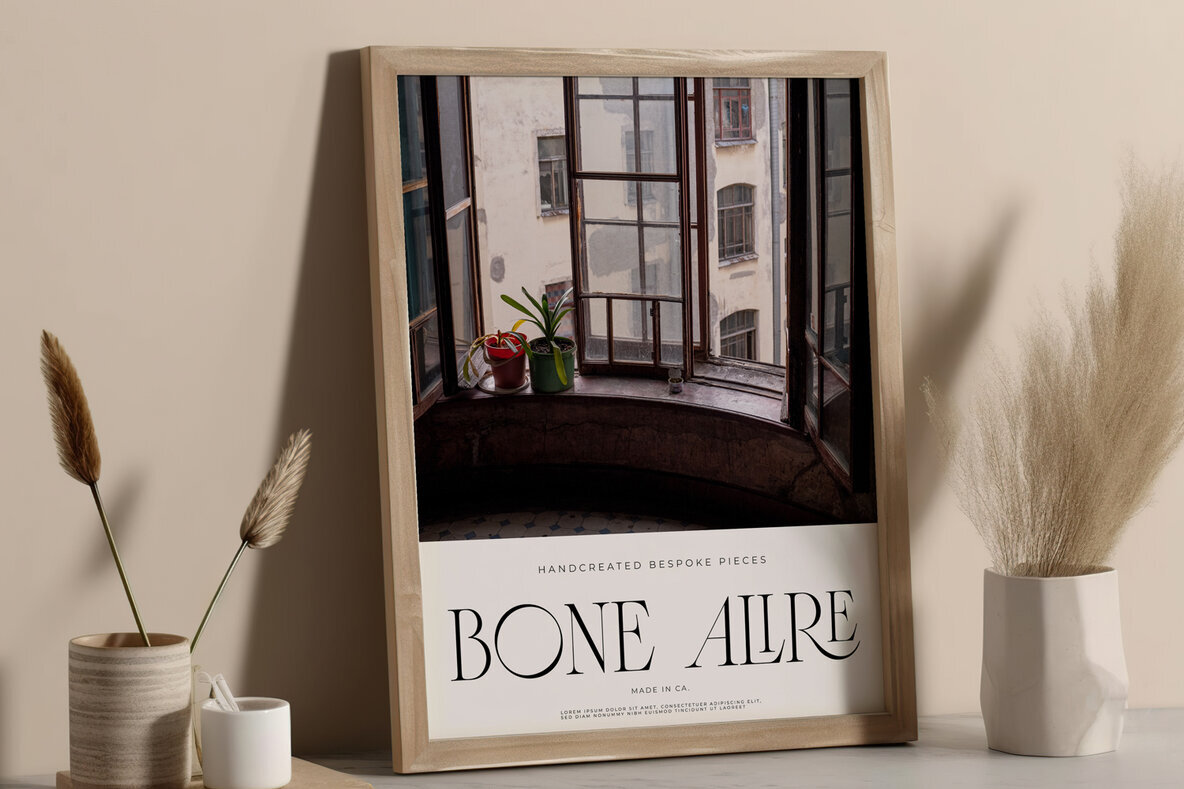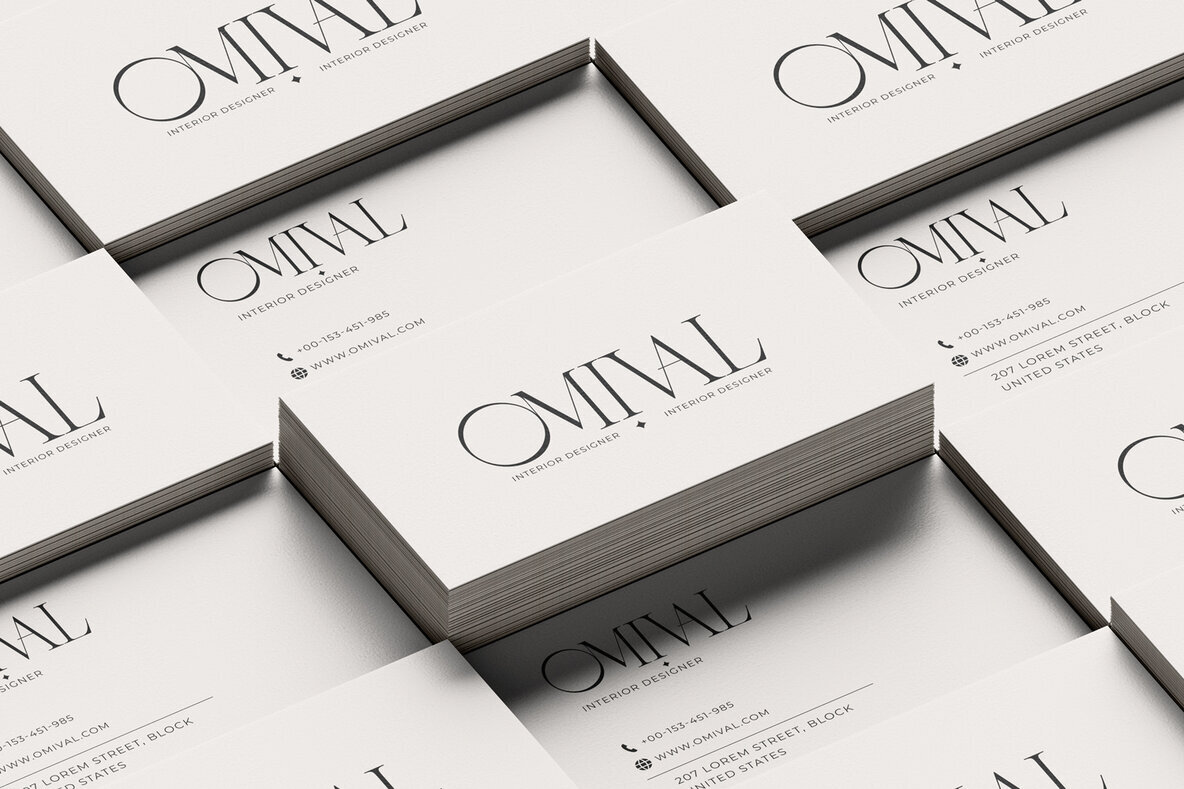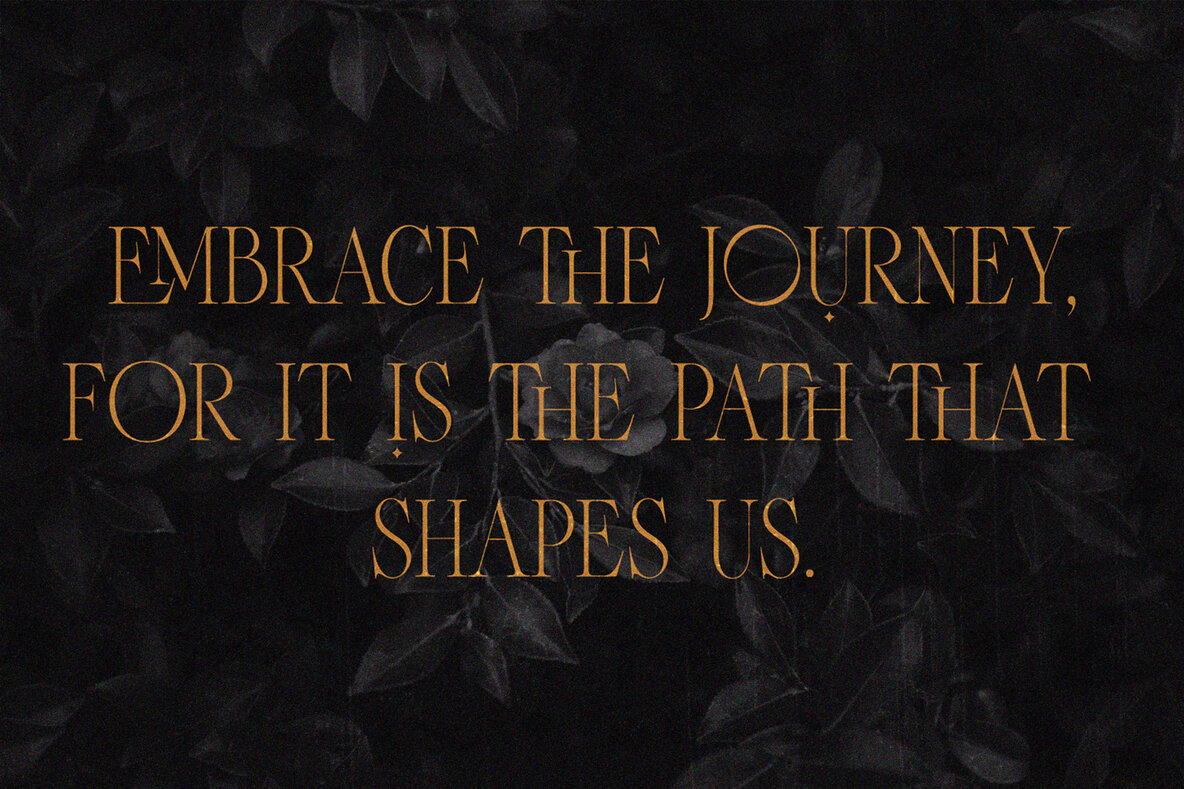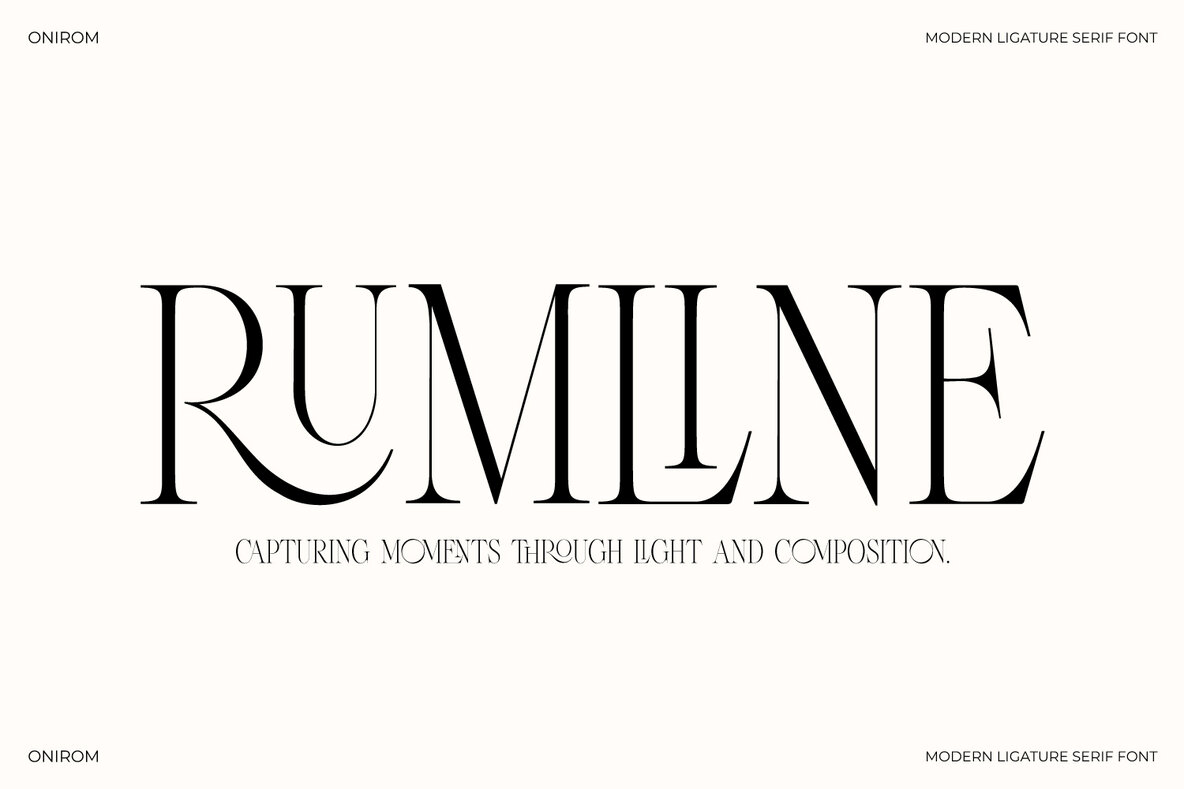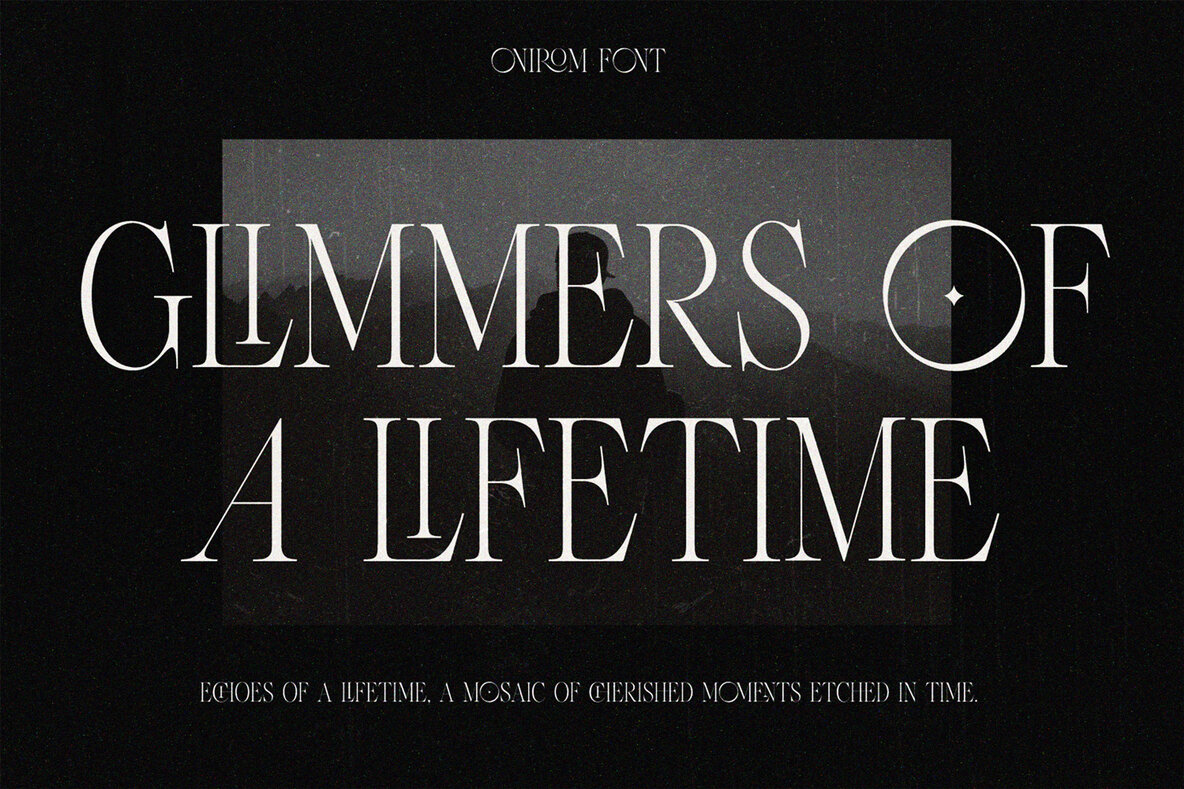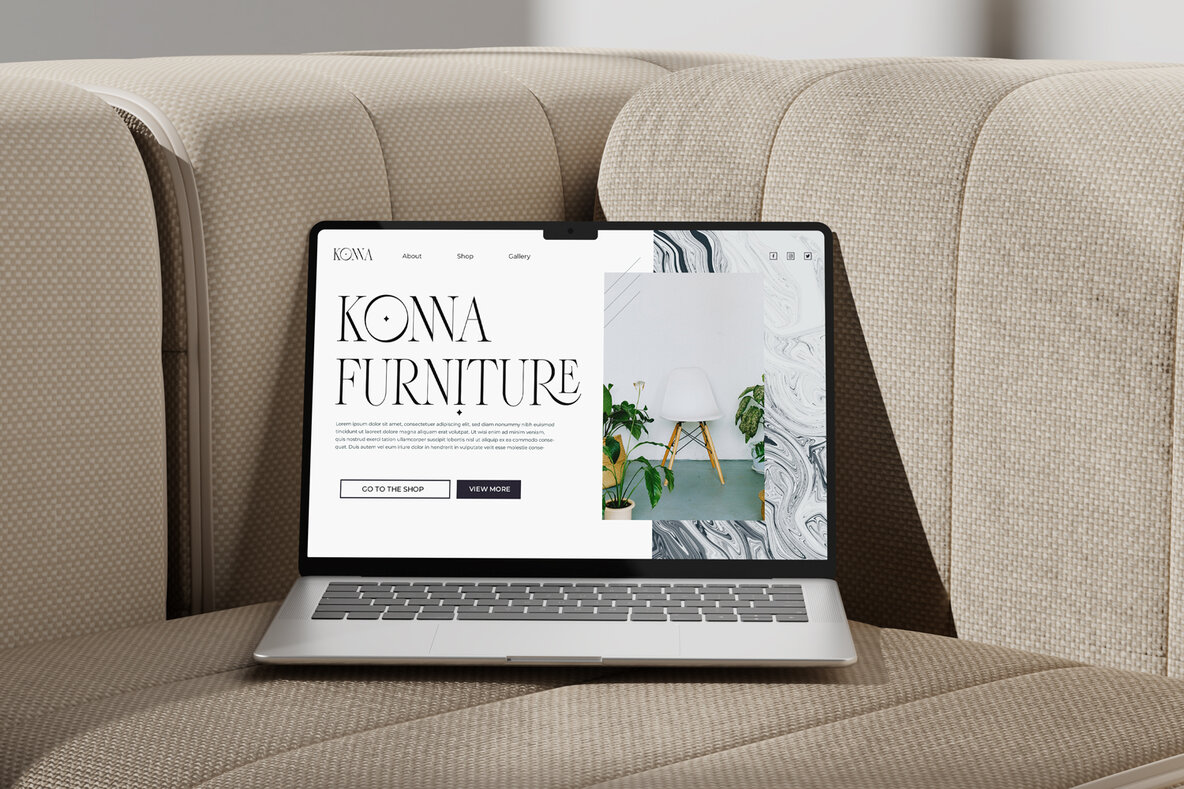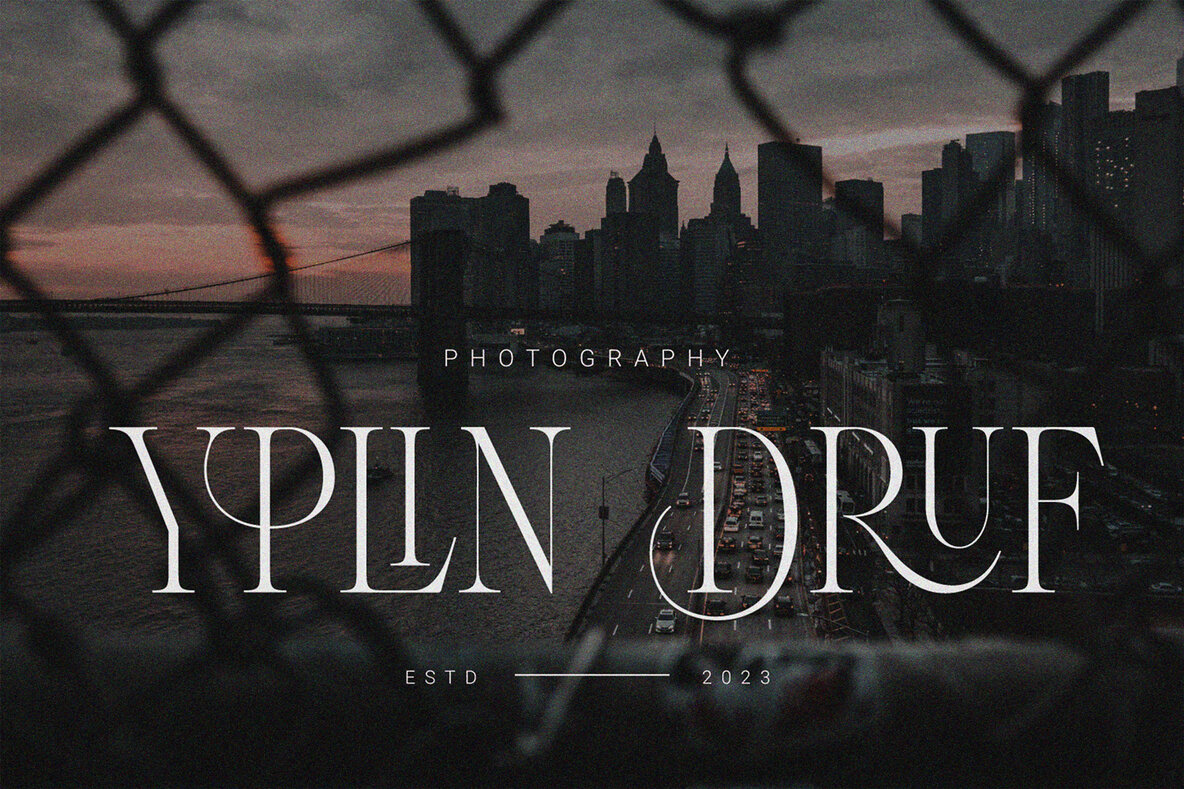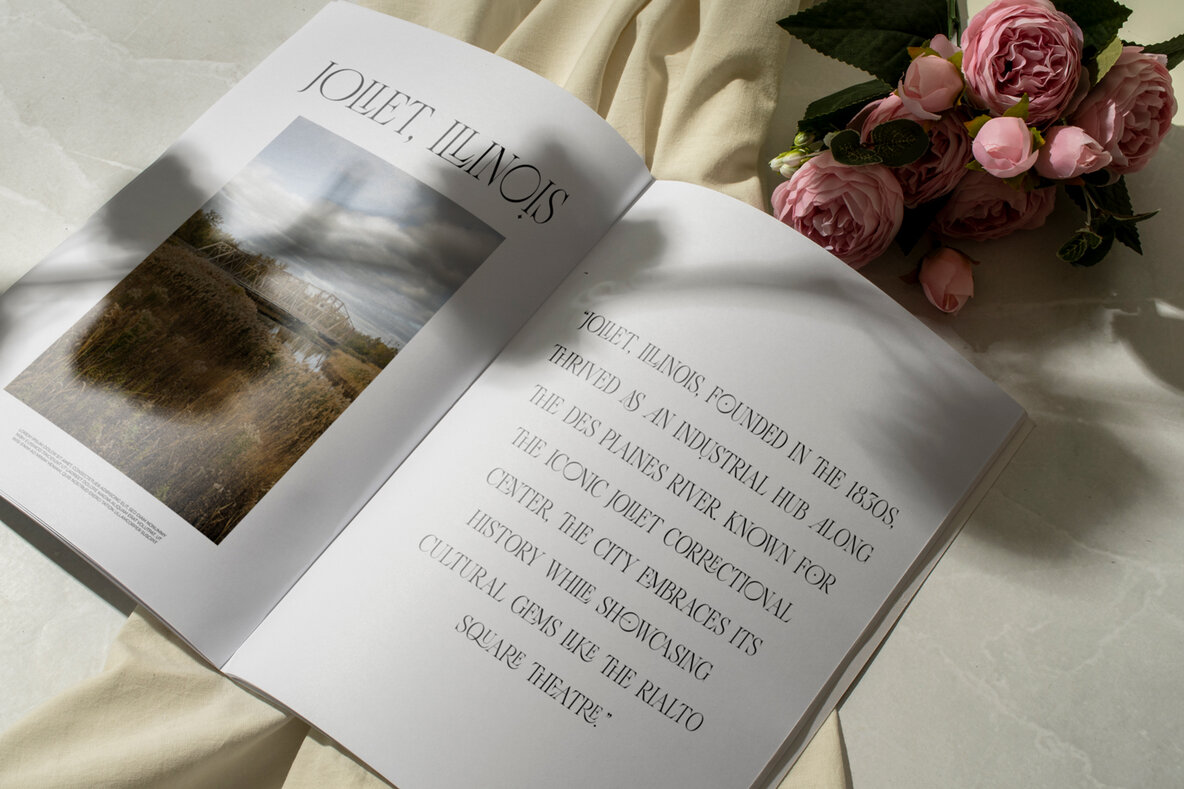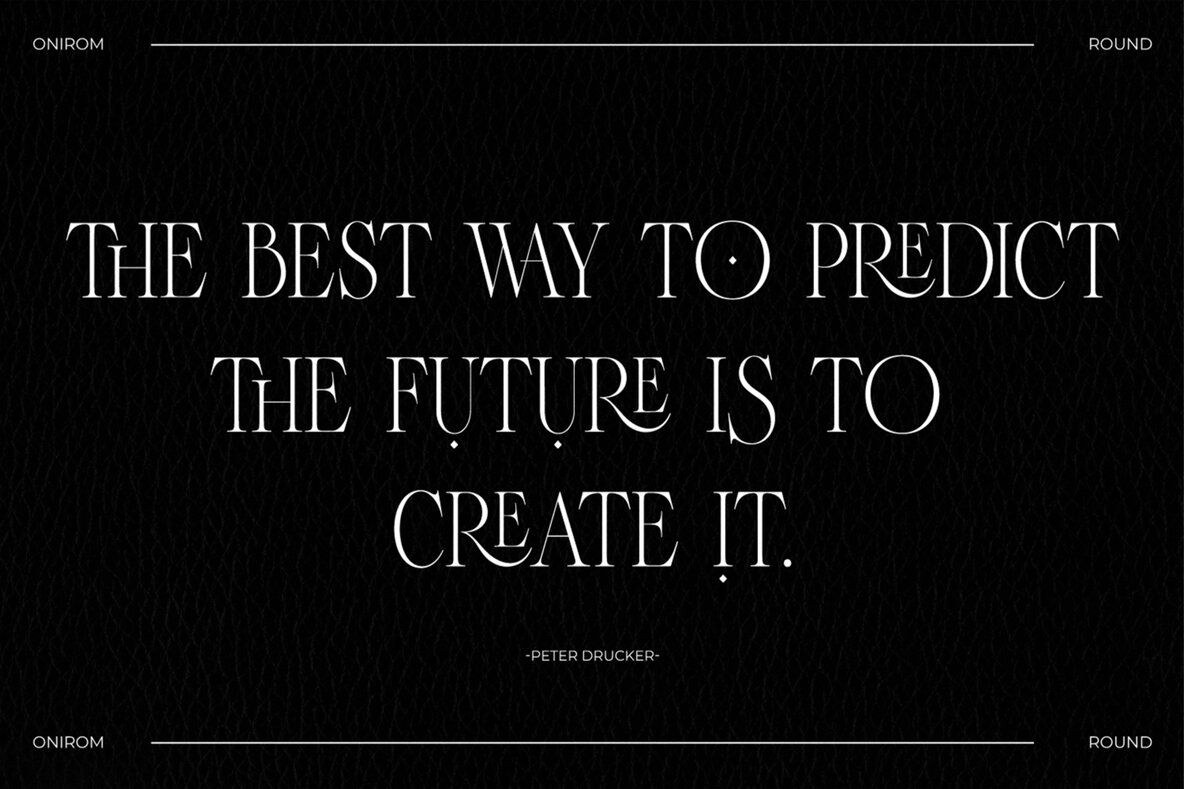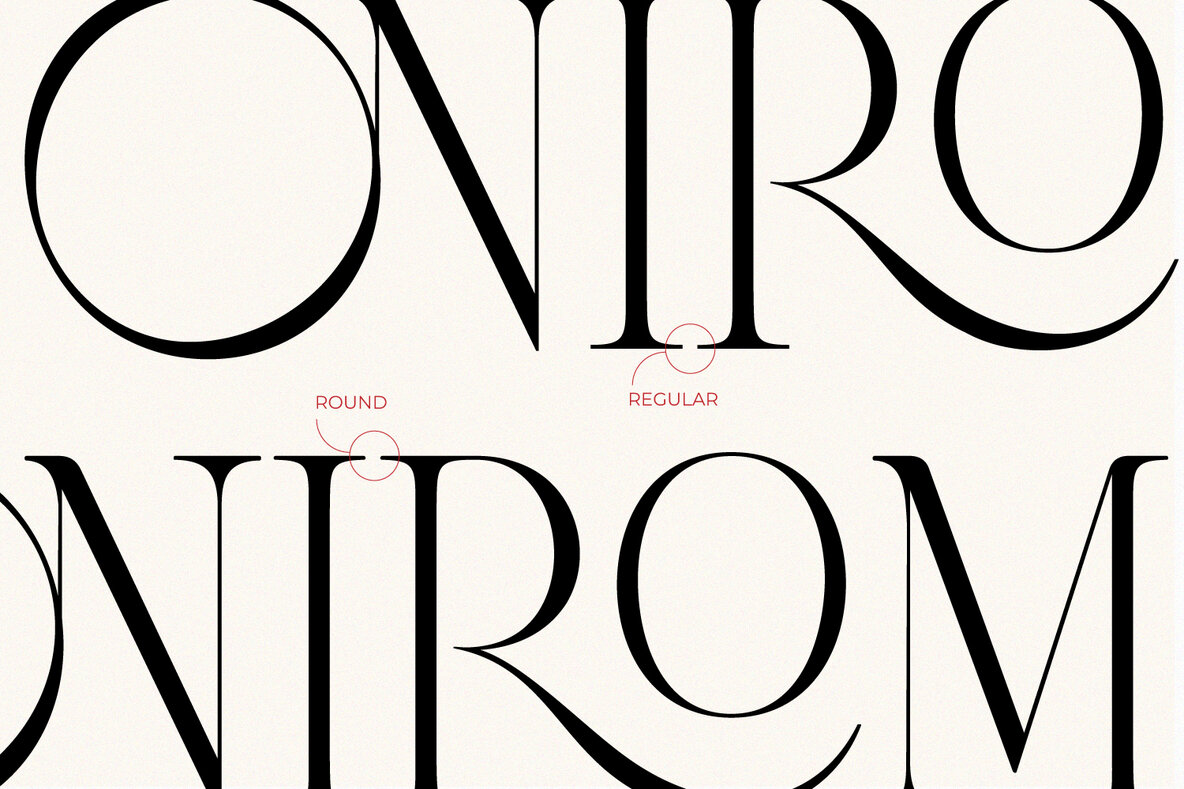
Onirom Font
Onirom Regular
Onirom Round
Onirom is a modern serif font featuring joining ligatures that offer a distinctive and elegant style. Perfect for a variety of applications such as branding, logos, invitations, and watermarks, this versatile font is sure to make a lasting impression.Onirom: Modern Ligature Serif Font with a Unique Flair